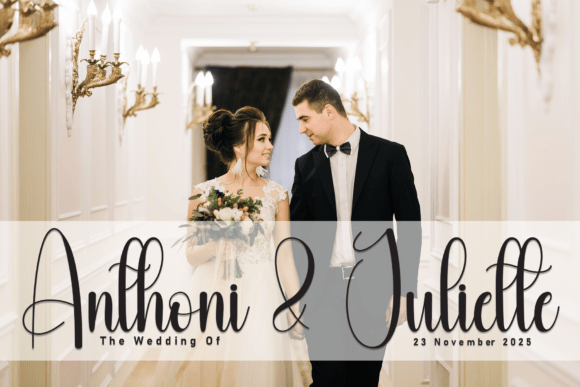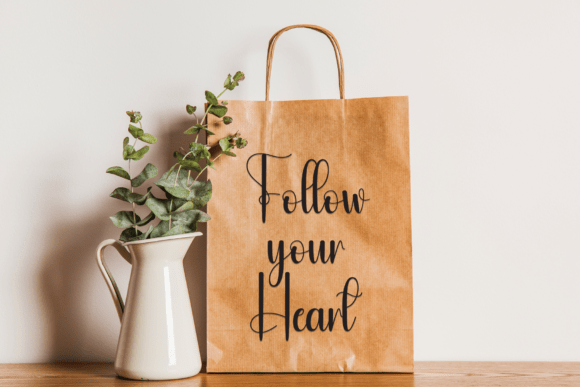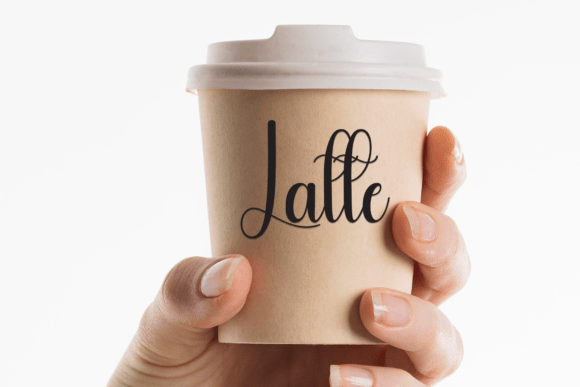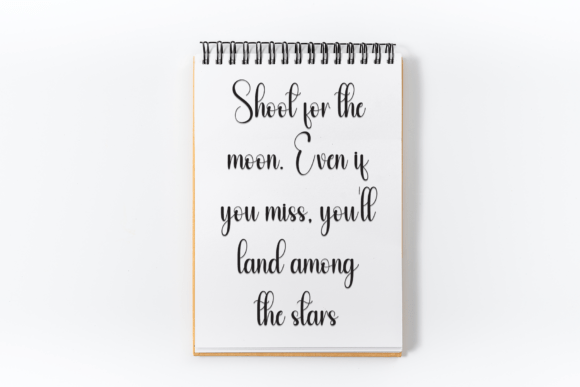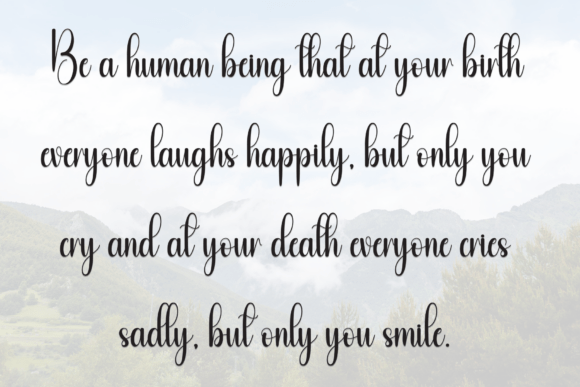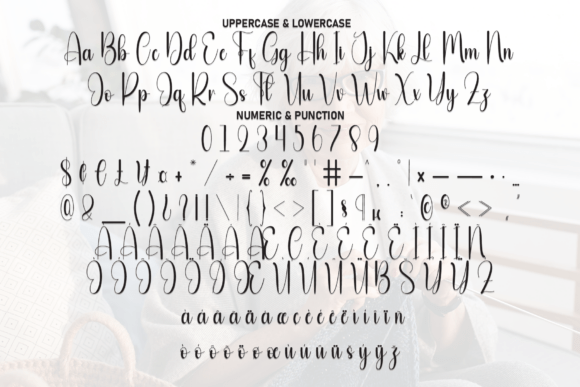
Introducing Grandma Font: The Perfect Blend of Charm and Whimsy
In the world of typography, few fonts capture the essence of warmth and playfulness as effortlessly as Grandma Font. This enchanting handwritten display font is a delightful fusion of charm and frivolity, making it an ideal choice for crafters and designers seeking to add a personal touch to their creations. Whether you’re penning wedding invitations, personalizing greeting cards, or adding a cheerful accent to your design declarations, Grandma Font is the perfect script to make your messages memorable.
A Font with a Heart
Grandma Font is more than just a writing tool – it’s typography with a heart. Its unique blend of warm intimacy and playful delight makes it an endearing addition to any design project. The font’s distinctive characters are carefully crafted to evoke a sense of nostalgia and friendliness, reminiscent of handwritten notes from a loved one. With Grandma Font, you can add a touch of whimsy and personality to your designs, making them stand out in a crowded digital landscape.
Wedding invitations and greeting cards are special occasions that call for a personal touch. Grandma Font is perfectly suited for these types of projects, as its charming and amiable nature adds a warm and fuzzy feeling to your messages. Imagine sending out wedding invitations that feature a beautiful, handwritten script that’s both elegant and playful. Or, picture a greeting card that feels like it was written by a loved one, with a font that’s both cheerful and sincere. Grandma Font makes these types of designs possible, and its versatility ensures that it will work beautifully for a wide range of projects.
Adding a Cheerful Touch to Design Declarations
Grandma Font is not just limited to wedding invitations and greeting cards. Its playful and charming nature makes it an excellent choice for adding a cheerful touch to larger design declarations. Whether you’re creating a banner, a poster, or a social media graphic, Grandma Font can add a touch of personality and whimsy to your design. The font’s unique blend of warmth and playfulness ensures that it will work beautifully for a wide range of design projects, from formal announcements to casual social media posts.
What Makes Grandma Font Special?
So, what sets Grandma Font apart from other fonts? Here are a few key features that make it an excellent choice for designers and crafters:
- Unique blend of warmth and playfulness: Grandma Font has a distinctive character that’s both charming and amiable.
- Handwritten display font: The font’s handwritten nature gives it a personal and intimate feel.
- Perfect for wedding invitations and greeting cards: Grandma Font is ideal for special occasions that call for a personal touch.
- Versatile: The font can be used for a wide range of design projects, from formal announcements to casual social media posts.
Tips for Using Grandma Font
Here are a few tips for getting the most out of Grandma Font:
- Use it for headings and titles: Grandma Font is perfect for adding a touch of personality to your headings and titles.
- Mix it with other fonts: Grandma Font pairs beautifully with other fonts, so don’t be afraid to experiment with different combinations.
- Experiment with colors: The font’s playful nature makes it perfect for experimenting with different colors and textures.
Grandma Font is a truly special font that’s perfect for designers and crafters seeking to add a personal touch to their creations. Its unique blend of warmth and playfulness makes it an endearing addition to any design project, and its versatility ensures that it will work beautifully for a wide range of applications. Whether you’re penning wedding invitations, personalizing greeting cards, or adding a cheerful touch to your design declarations, Grandma Font is the perfect script to make your messages memorable. So why settle for ordinary typography when you can have typography with a heart? Try Grandma Font today and see the difference it can make in your designs!